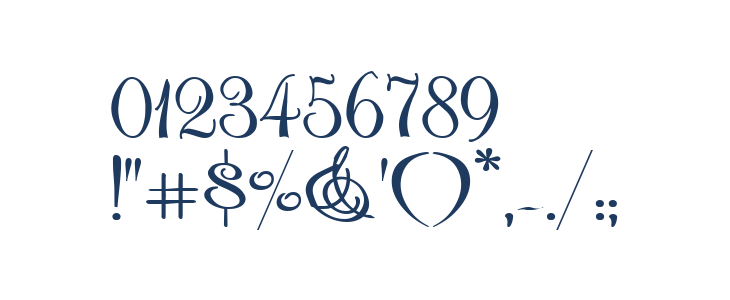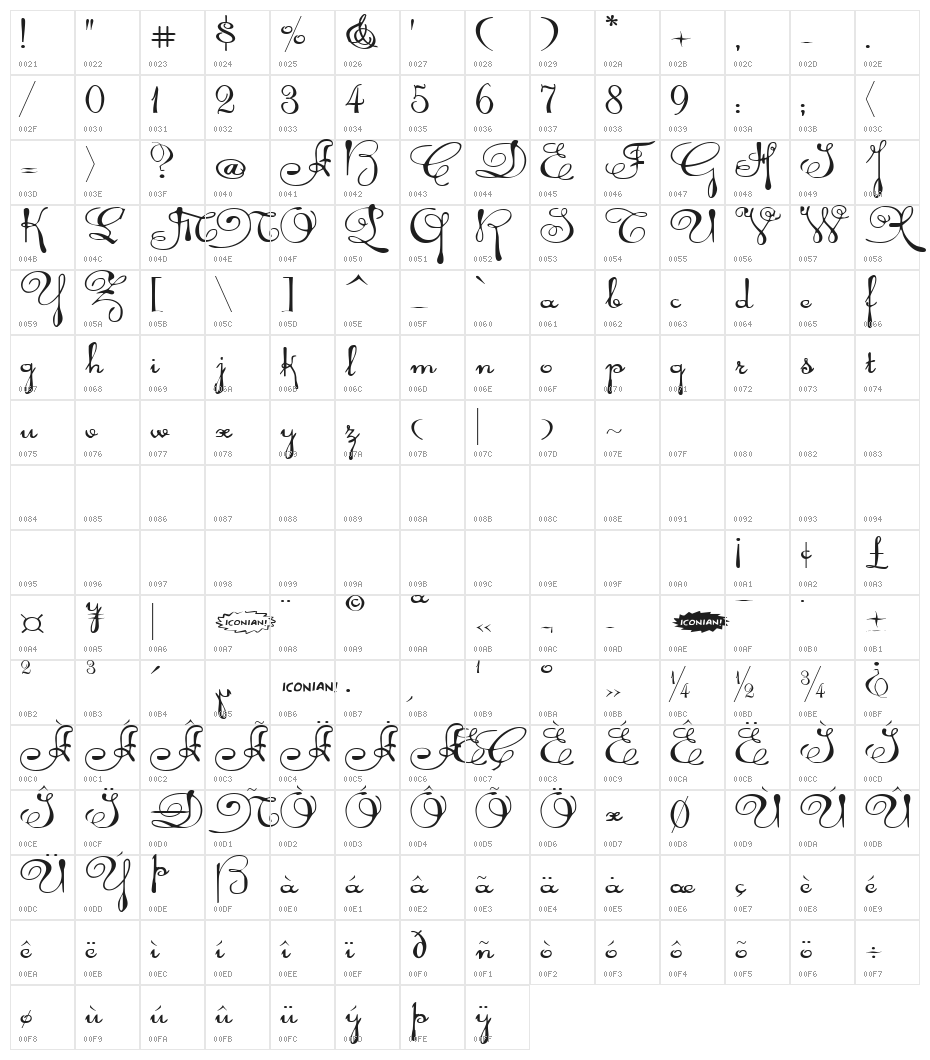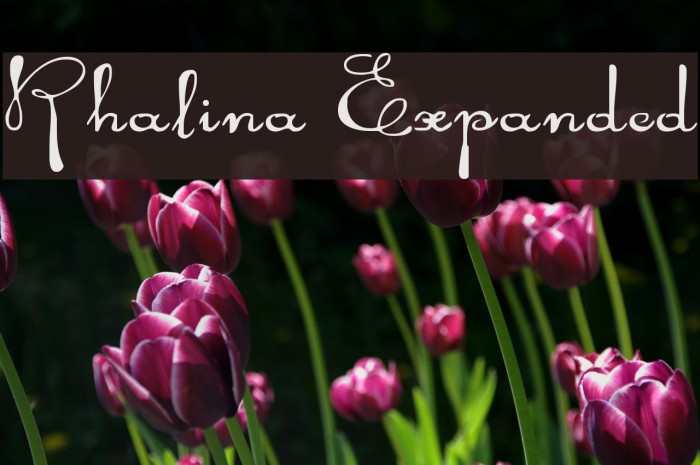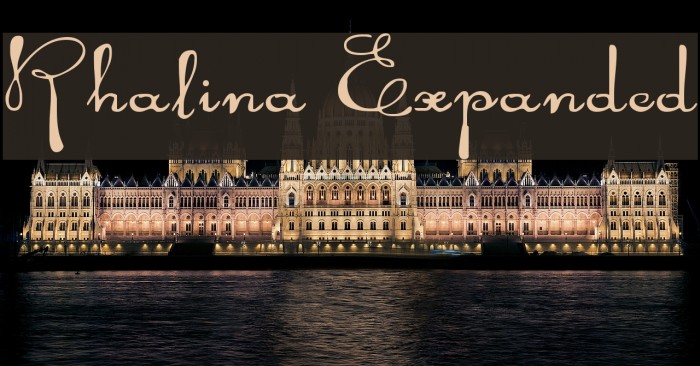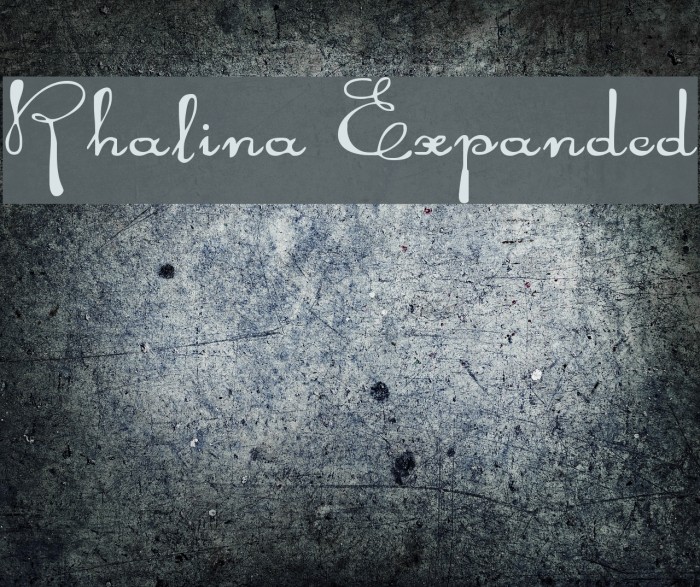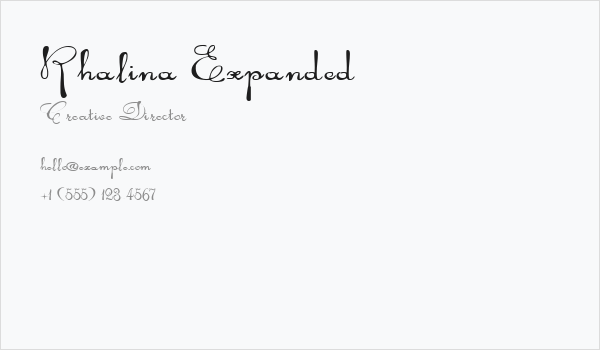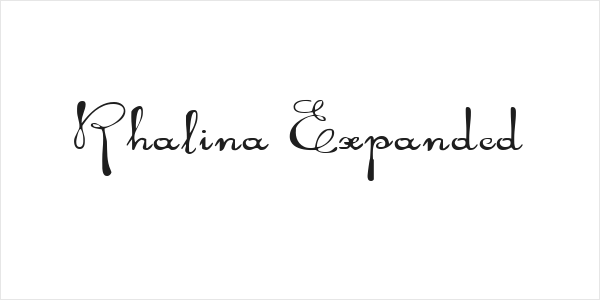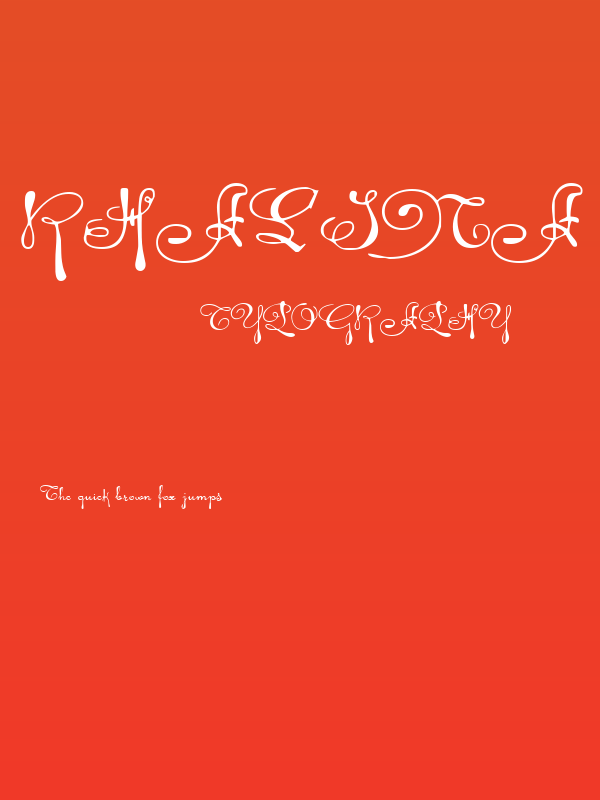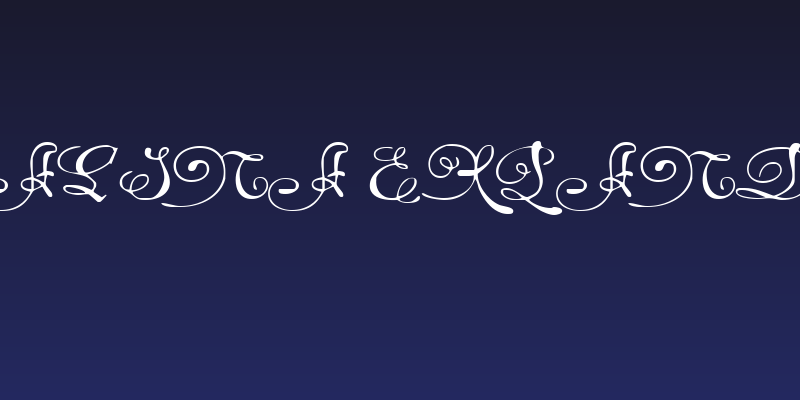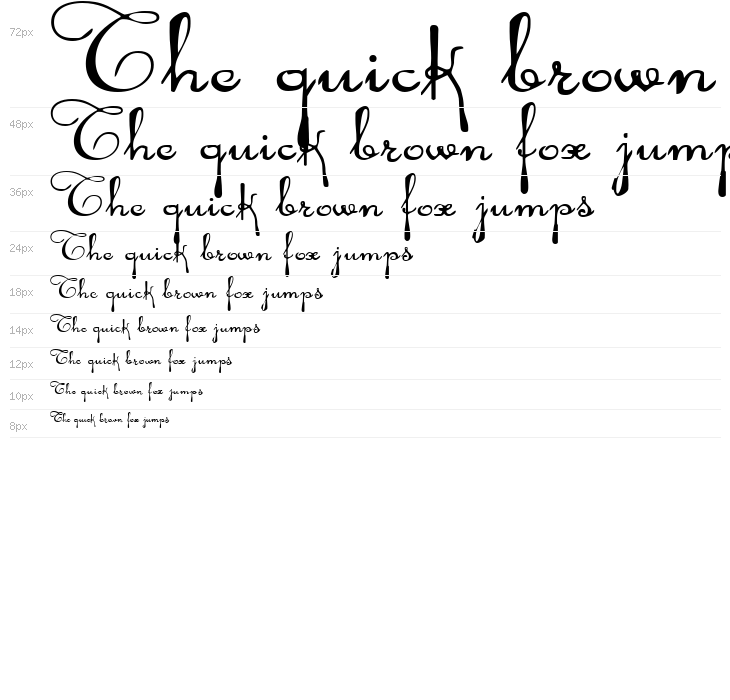
Rhalina Expanded Font
Rhalina Expanded Description
This font exhibits a unique and artistic style, characterized by its elegant and flowing script. The uppercase letters are adorned with intricate loops and swirls, giving them a decorative flair. The lowercase letters maintain a consistent fluidity, with elongated strokes and a graceful appearance. The numerals are bold and slightly exaggerated, adding to the overall dramatic effect. Special characters are creatively designed, incorporating the same ornamental elements seen throughout the alphabet. This font's distinctiveness makes it suitable for projects that require a touch of sophistication and creativity.
| Use Case | Logos, Invitations, Artistic Designs |
| Proposed Projects | Ideal for wedding invitations, greeting cards, branding, and artistic posters. |